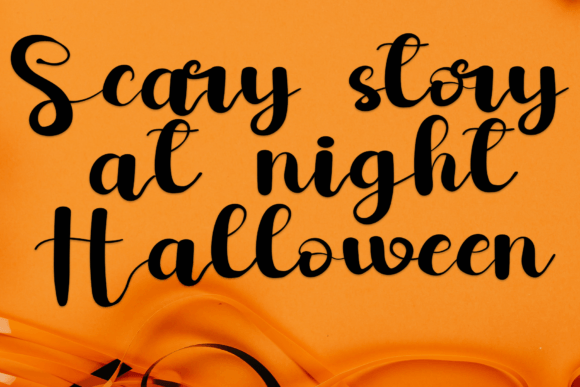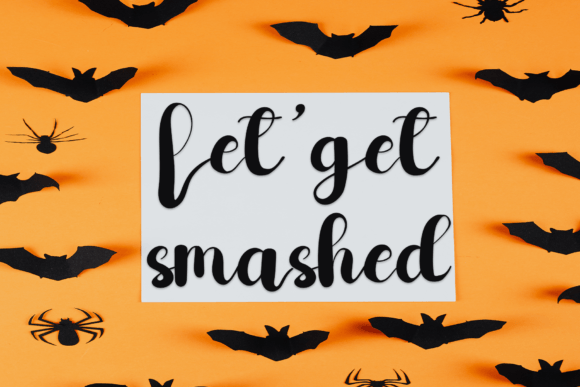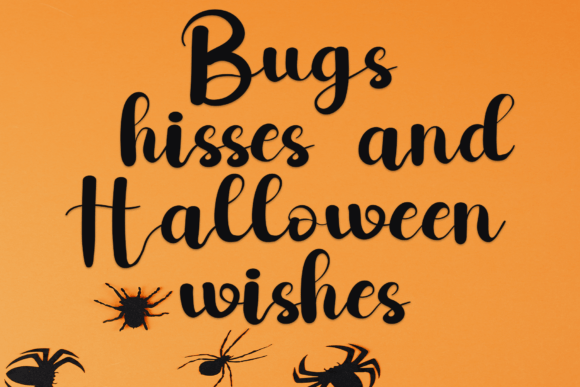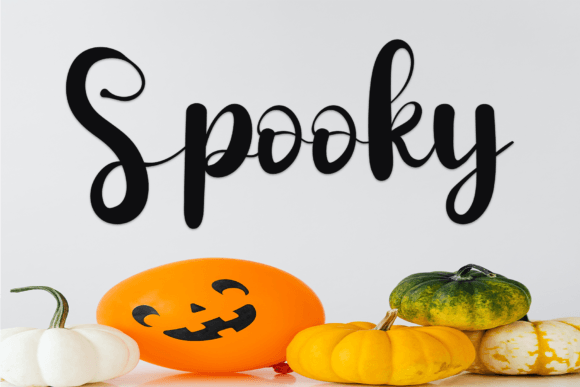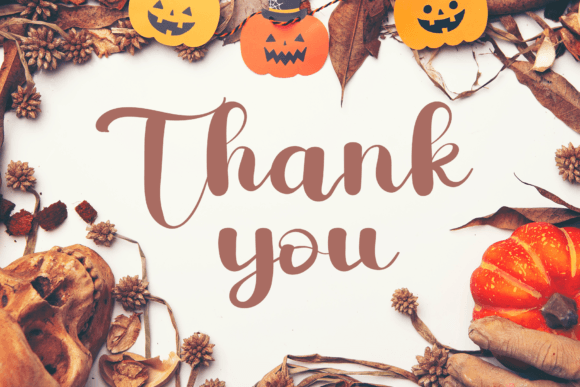
Introducing Happy Helloween Font: The Perfect Blend of Modern and Classic
Are you on the hunt for a font that adds a touch of elegance and sophistication to your design projects? Look no further than Happy Helloween Font, a cool handwritten font that brings a modern vibe to the table while paying homage to classic calligraphy. In this article, we’ll dive into the features and benefits of Happy Helloween Font, and explore how it can elevate your designs to the next level.
A Balanced and Versatile Font
Happy Helloween Font is a masterclass in balance and versatility. Not too thin and not too thick, this font strikes the perfect chord between modern sleekness and classic charm. The spotless form and varied strokes add a level of sophistication to your designs, making it perfect for a wide range of projects, from branding and advertising to packaging and digital media.
One of the standout features of Happy Helloween Font is its balanced nature. The font is designed to be easy to read and visually appealing, making it perfect for use in body text, headings, and titles. The varied strokes and modern vibe also ensure that your designs don’t look too traditional or outdated, giving you the flexibility to create fresh and modern designs that appeal to a wide audience.
Inspiration from Classic Calligraphy
Happy Helloween Font draws inspiration from classic calligraphy, adding a touch of elegance and sophistication to your designs. The font’s modern take on traditional calligraphy ensures that your designs don’t look too vintage or over-the-top, making it perfect for designers who want to add a touch of classic charm to their work without going overboard.
The classic calligraphy inspiration also gives Happy Helloween Font a level of timelessness, ensuring that your designs don’t look dated or trendy. Whether you’re creating a logo, brochure, or website, Happy Helloween Font is a versatile choice that will stand the test of time.
Happy Helloween Font is a dream come true for designers and crafters who want to add a touch of elegance and sophistication to their work. The font’s versatility and balanced nature make it perfect for a wide range of projects, from digital media to print materials.
Key Features of Happy Helloween Font
• Cool handwritten font with a modern vibe
• Spotless form and varied strokes
• Inspired by classic calligraphy
• Balanced and versatile
• Perfect for a wide range of design projects
Tips for Using Happy Helloween Font
Here are a few tips for getting the most out of Happy Helloween Font:
• Use Happy Helloween Font as a headline font to add a touch of elegance and sophistication to your designs.
• Pair Happy Helloween Font with a sans-serif font for a modern and fresh look.
• Experiment with different colors and textures to add depth and interest to your designs.
• Use Happy Helloween Font to create stunning titles and headings for your blog posts, articles, and social media graphics.
Happy Helloween Font is a game-changer for designers and crafters who want to add a touch of elegance and sophistication to their work. With its modern vibe, balanced nature, and classic calligraphy inspiration, this font is perfect for a wide range of design projects. Whether you’re creating a logo, brochure, or website, Happy Helloween Font is a versatile choice that will elevate your designs to the next level.